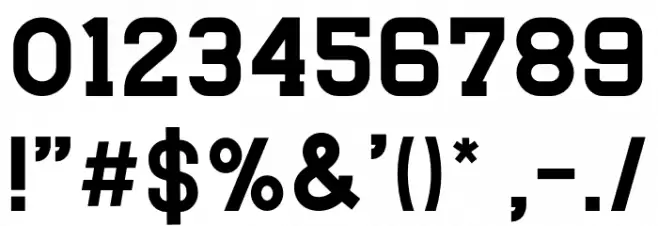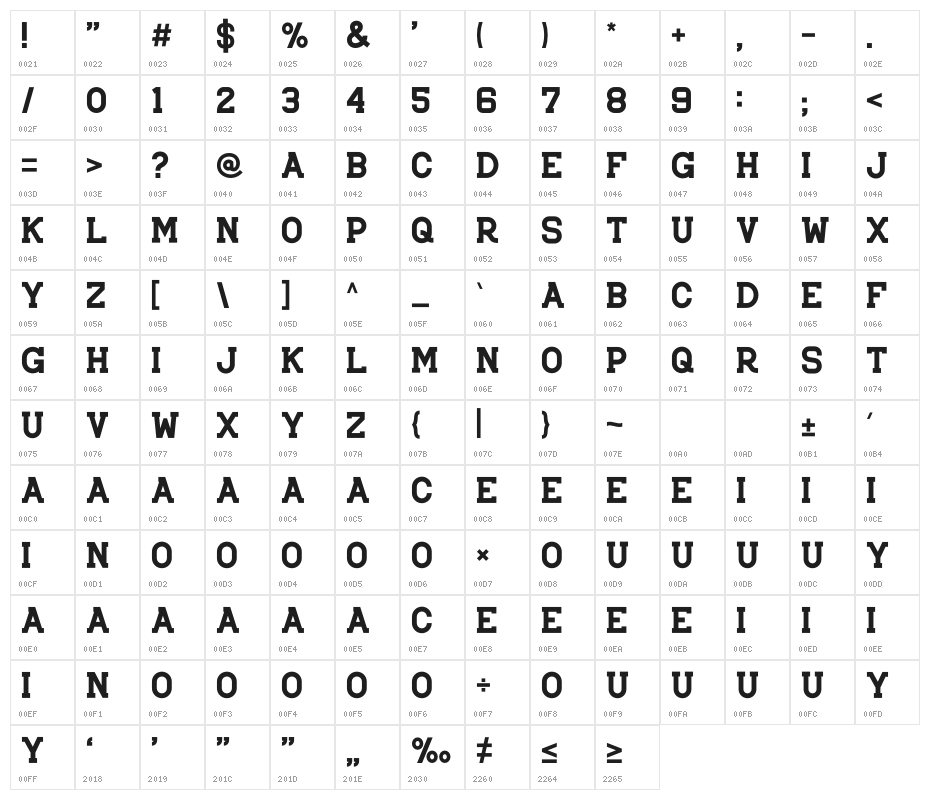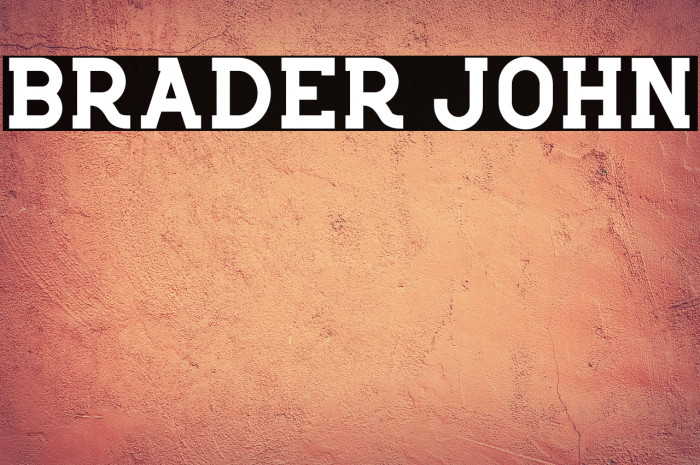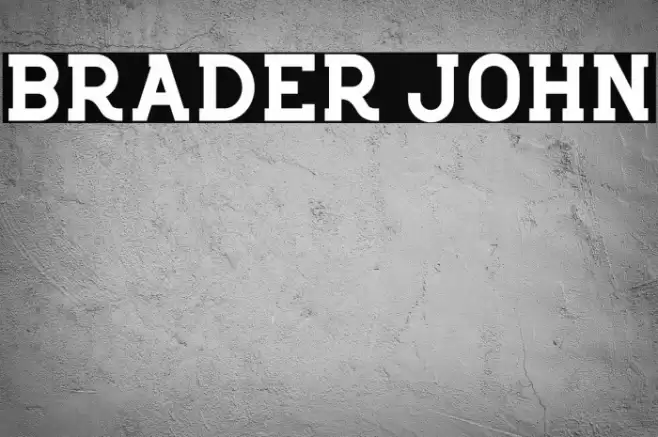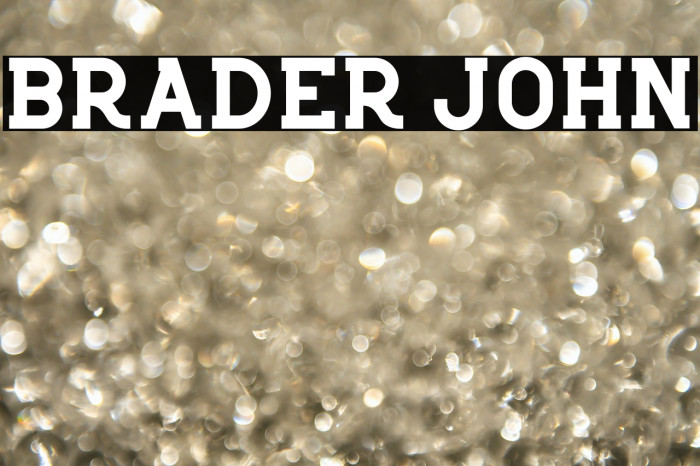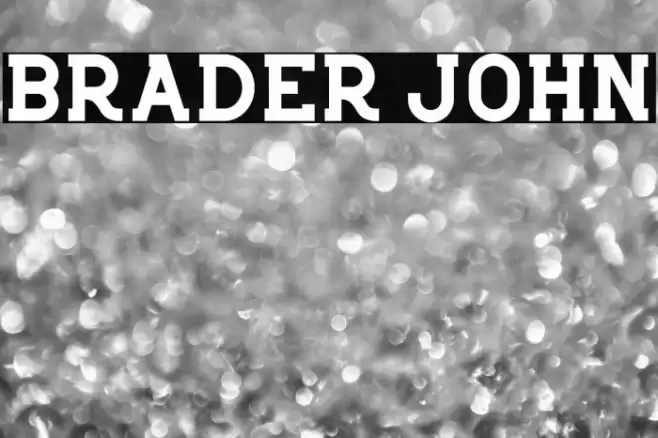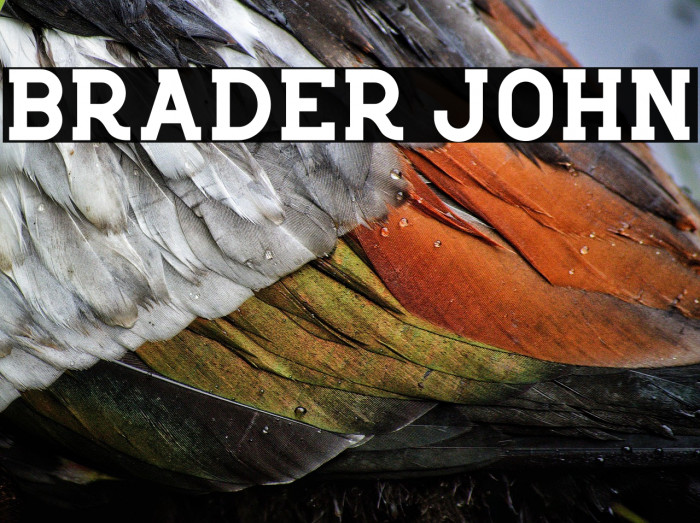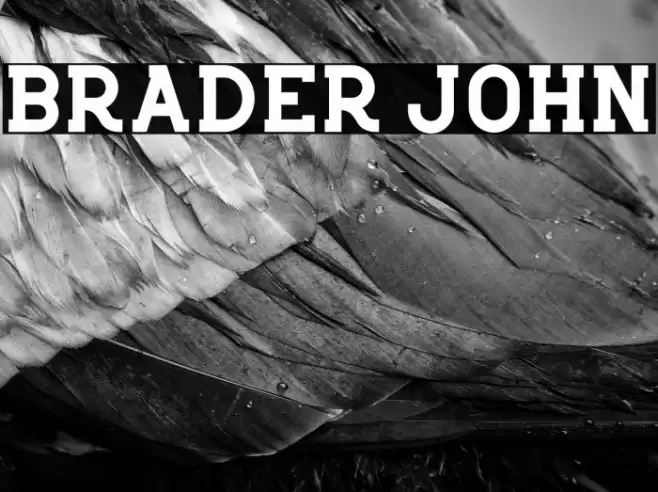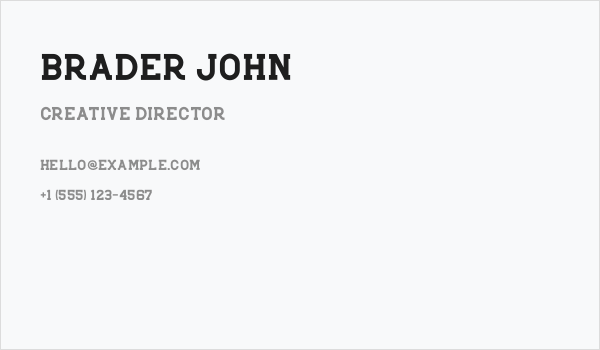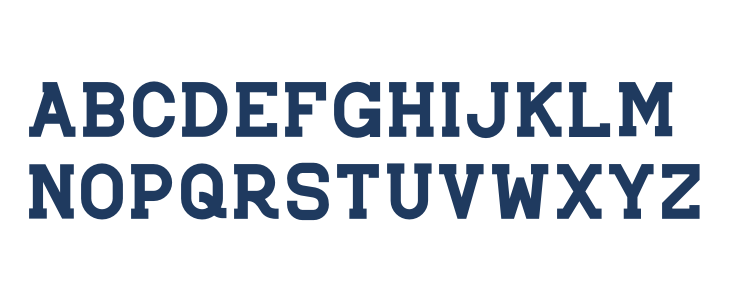
Brader John Font
Brader John Description
This font exhibits a bold and robust slab serif style, characterized by thick, block-like serifs and a strong presence. The uppercase letters are uniform in height, providing a sense of stability and strength. The lowercase letters maintain a consistent weight, complementing the uppercase with a slightly more compact form. Numerals are clear and easily distinguishable, making them suitable for various applications. The special characters are well-defined, maintaining the overall bold aesthetic. This font is ideal for projects that require a commanding and authoritative look, such as headlines, posters, and branding materials.